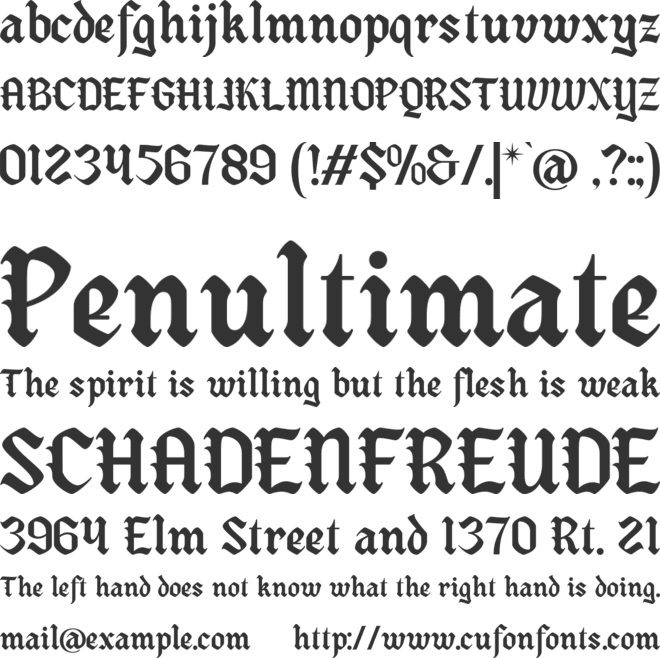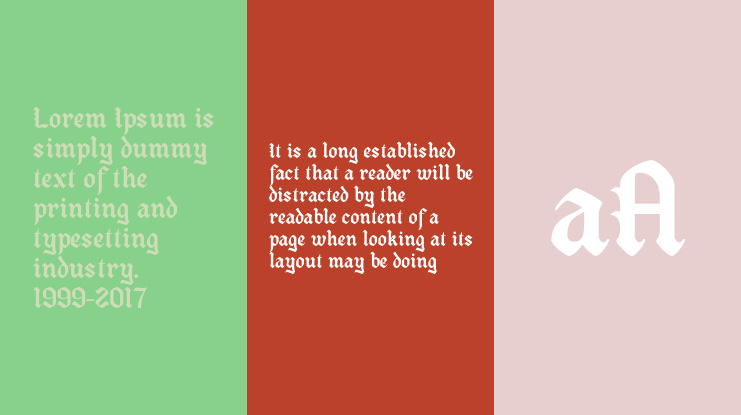
Reblade Font
Perfect For:
- Logo Design & Branding
- Apparel & T-Shirt Design (Motorcycle clubs, streetwear, metal bands)
- Tattoo Art & Studio Branding
- Product Packaging & Labels
- Poster, Flyers, and Album Covers
- Edgy Social Media Graphics